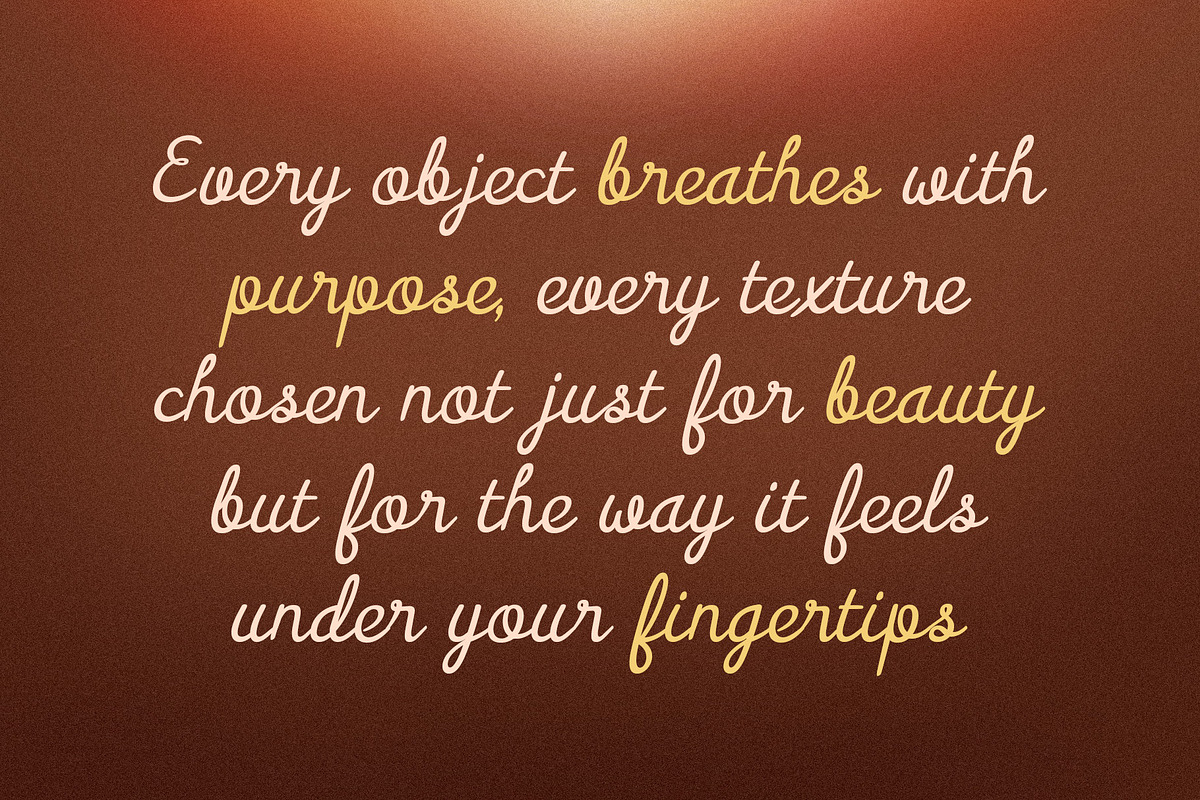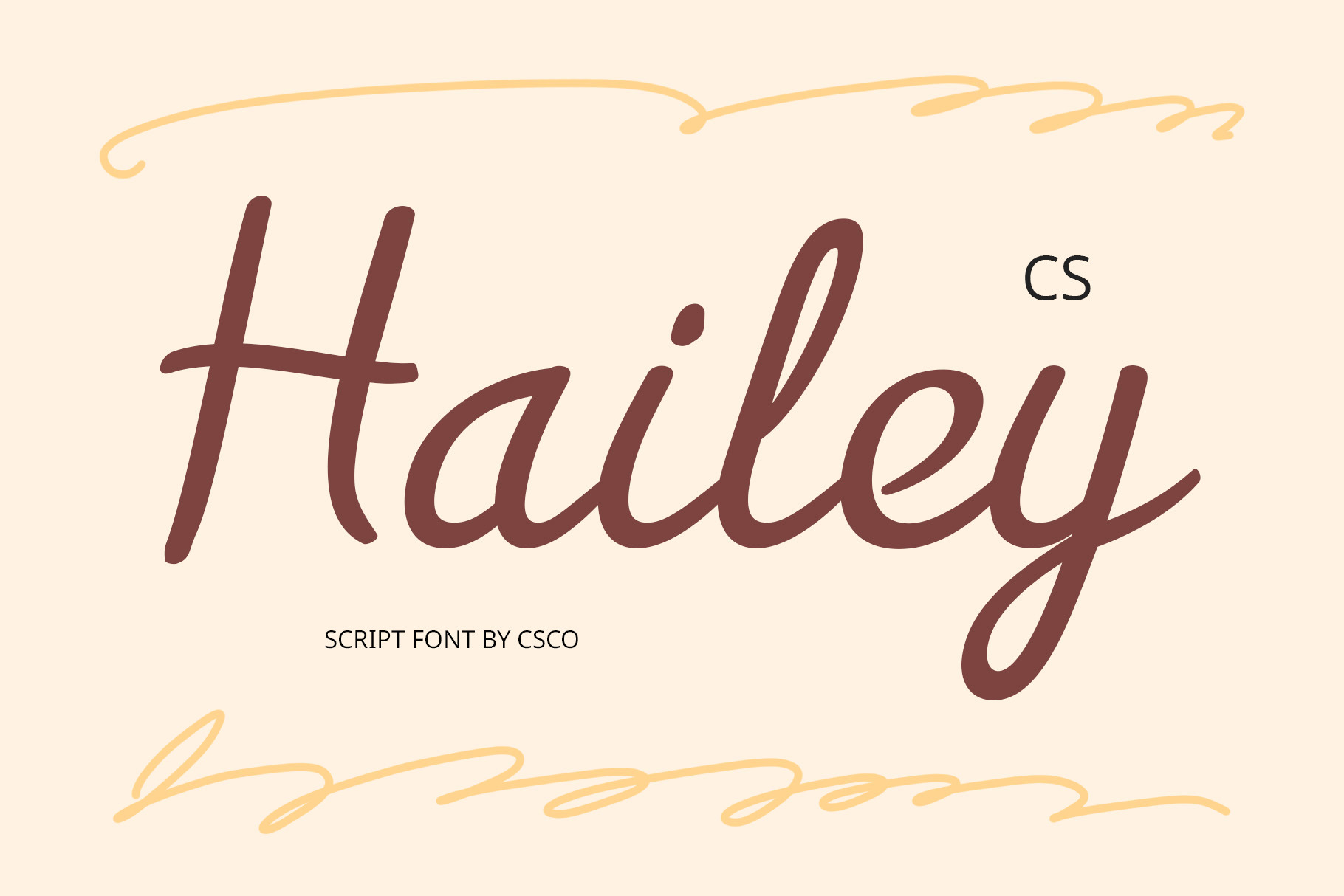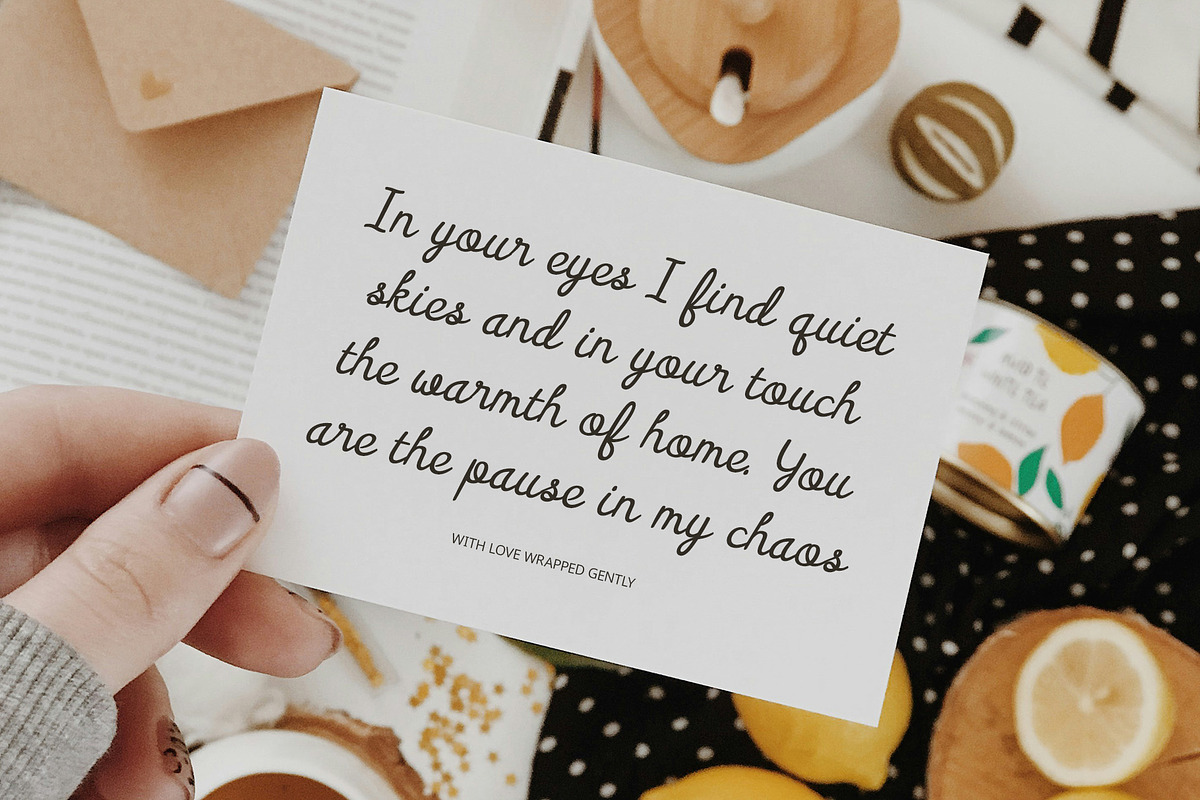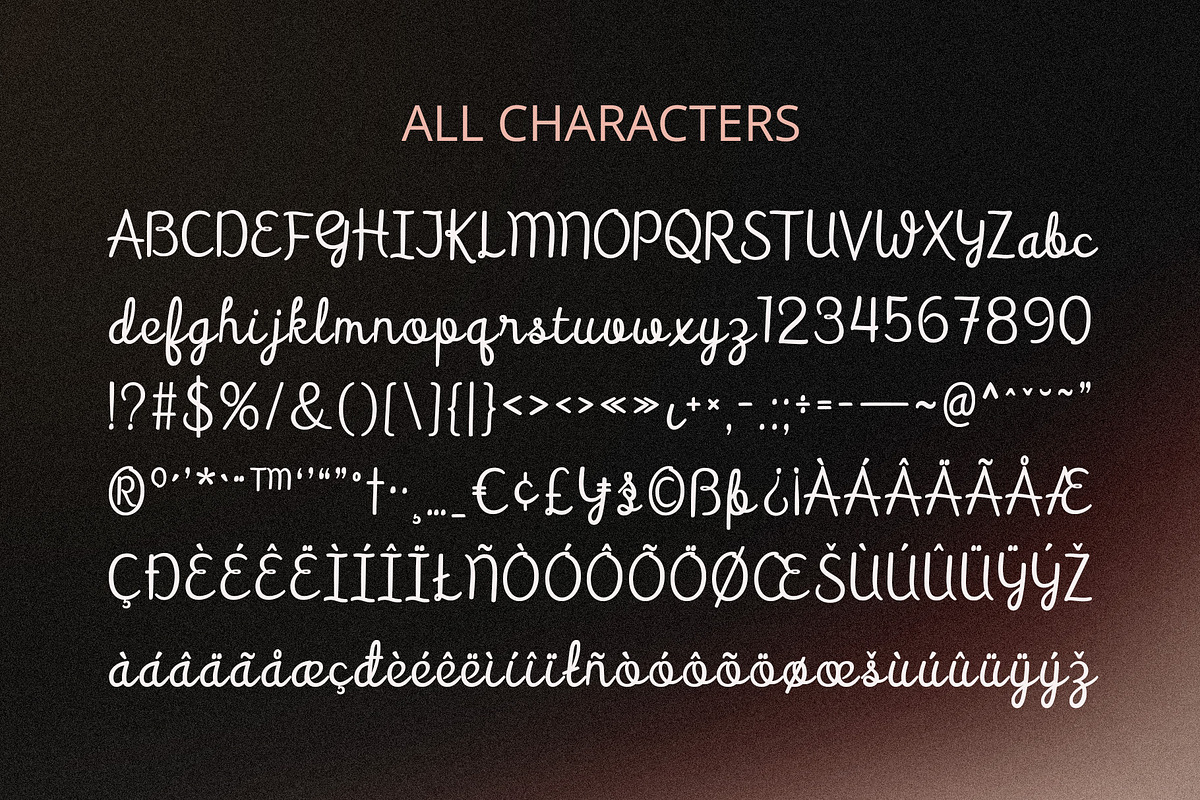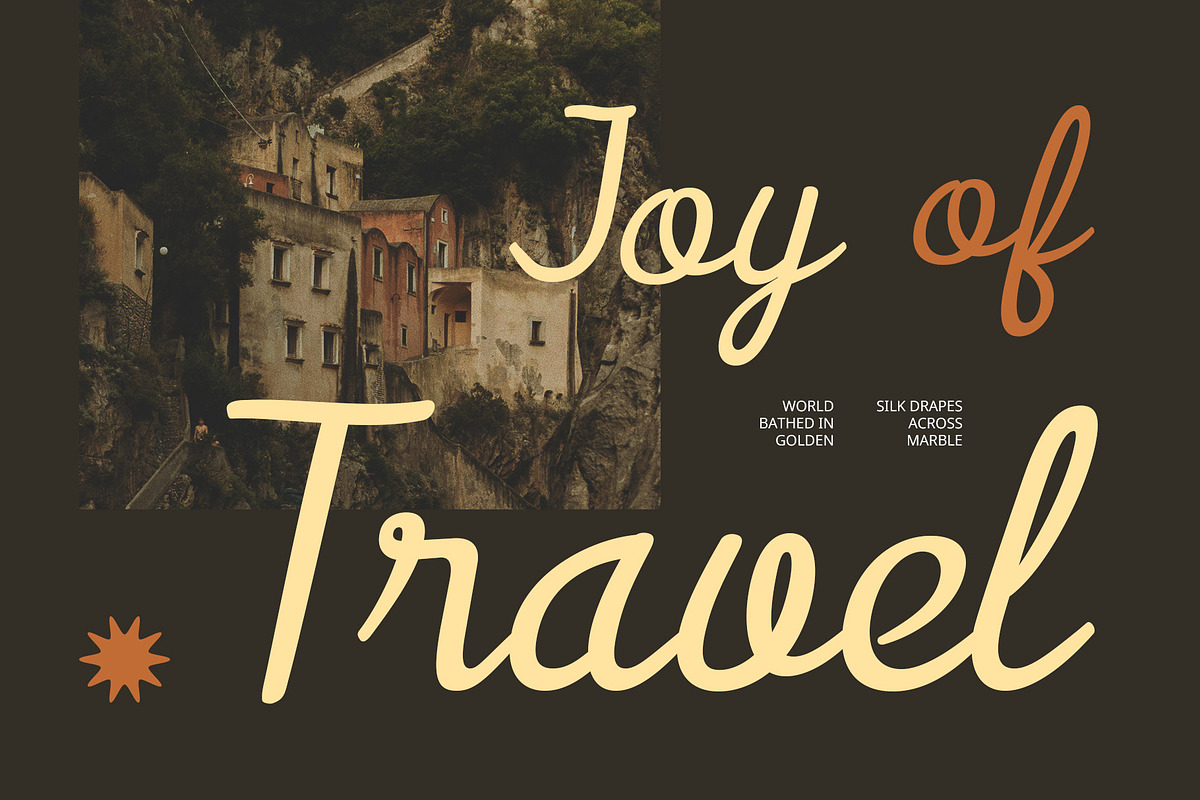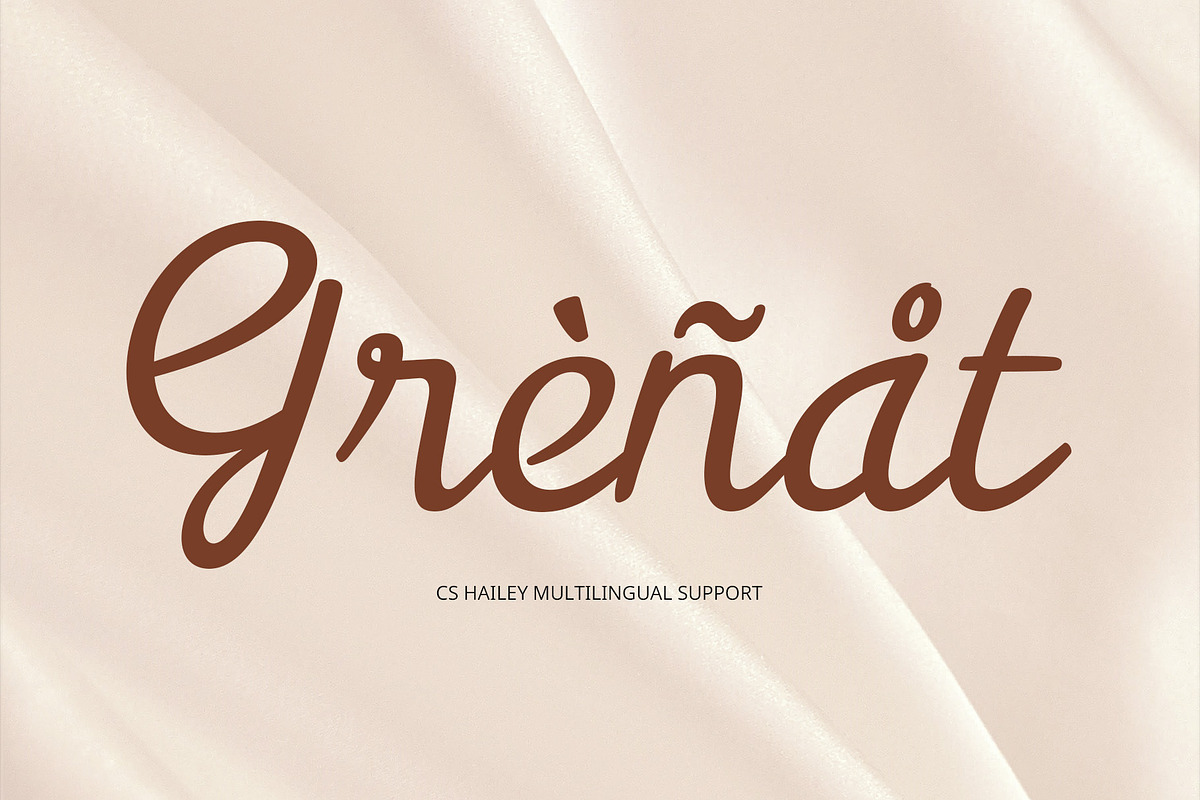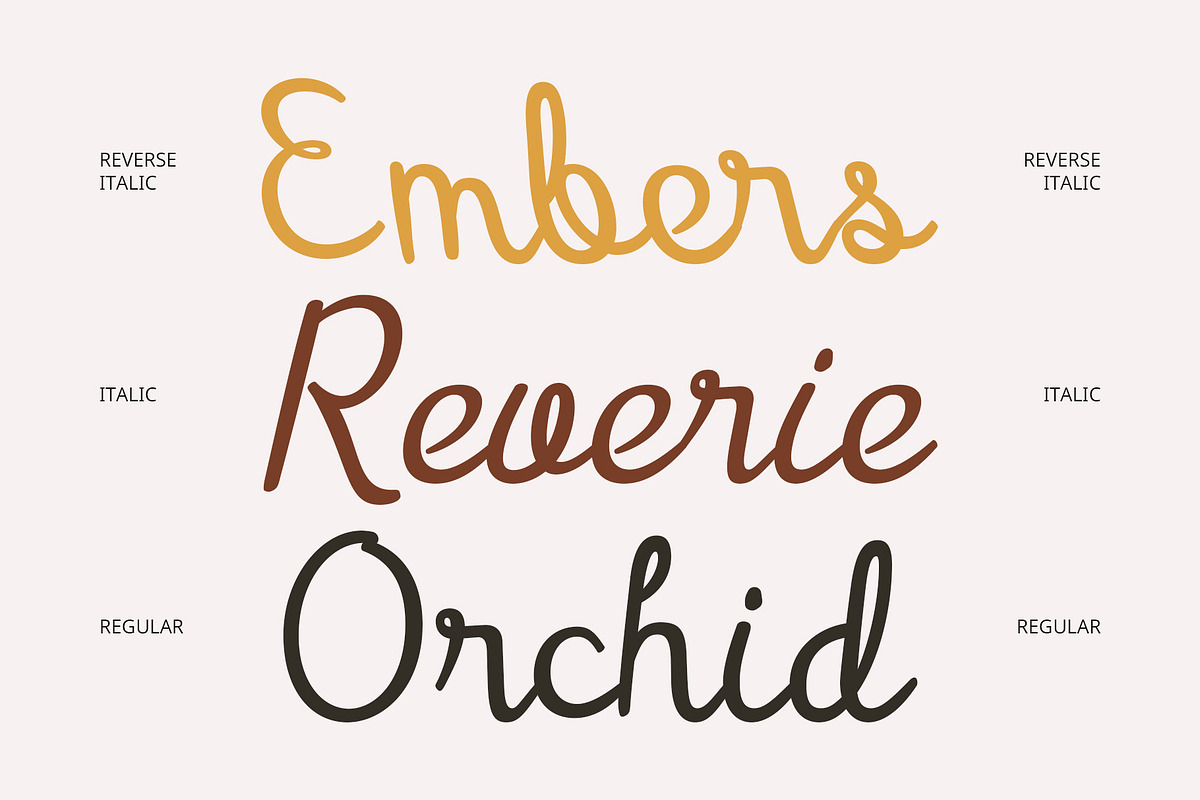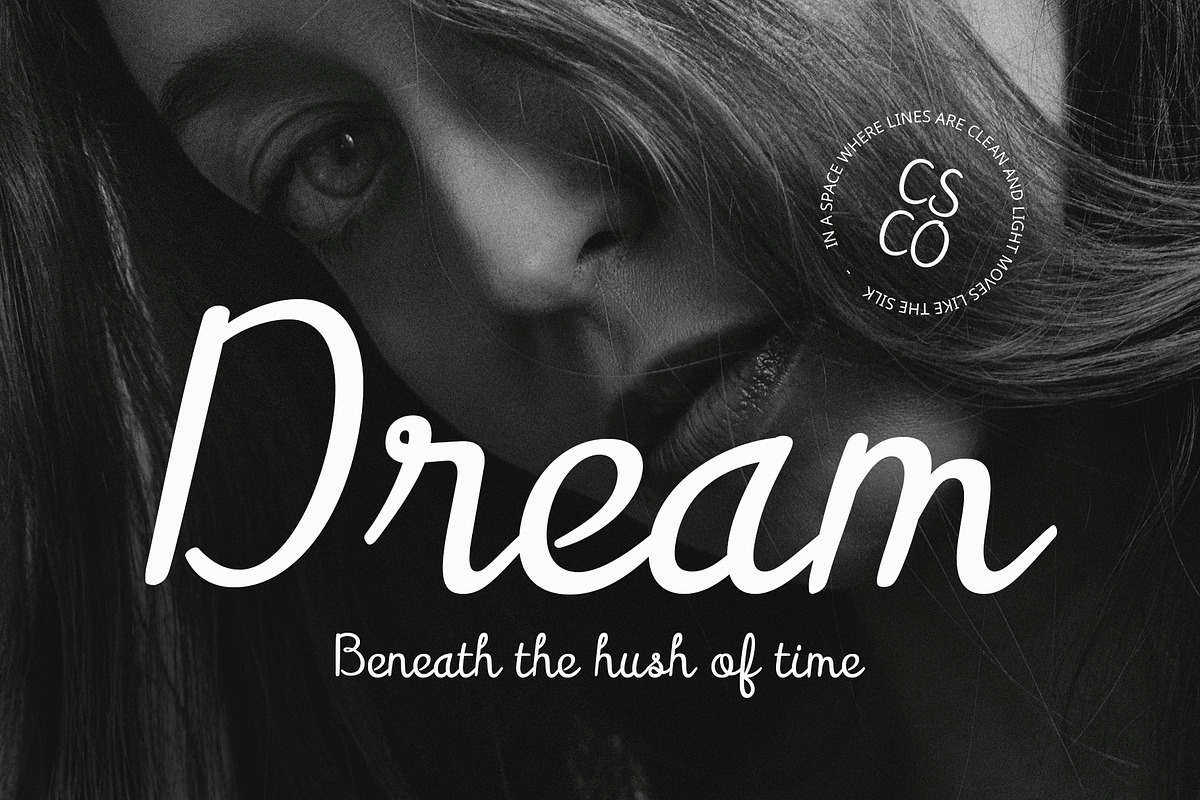
CS Hailey – Script Font
CS Hailey – Script Font: Elegance with a Modern Flow
Smooth Curves with Timeless Grace CS Hailey is a modern script font that captures the beauty of flowing cursive with a fresh, contemporary spirit. Its smooth, sweeping letterforms radiate a sense of luxury and warmth, making every word feel inviting and refined.
Balanced Between Classic and Modern Designed with proportional precision, CS Hailey blends the elegance of classic handwriting with the clean minimalism of modern typography. Each stroke is crafted to be both graceful and legible, offering sophistication without sacrificing readability.
Perfect for Premium and Feminine Branding Whether for wedding invitations, boutique logos, or luxury product packaging, CS Hailey delivers a graceful charm that speaks of professionalism and refinement. Its feminine touch enhances any design that aims to feel exclusive yet approachable. Ideal for wedding invitations, boutique logos, luxury product packaging, and upscale event stationery, CS Hailey brings a graceful and professional charm to any project.
Versatile for Elegant Applications From high-end editorial layouts to personal stationery, CS Hailey adapts beautifully to a variety of design needs. It can serve as a striking focal point in bold displays or complement minimalist compositions with subtle elegance, making it a timeless asset for creative projects.